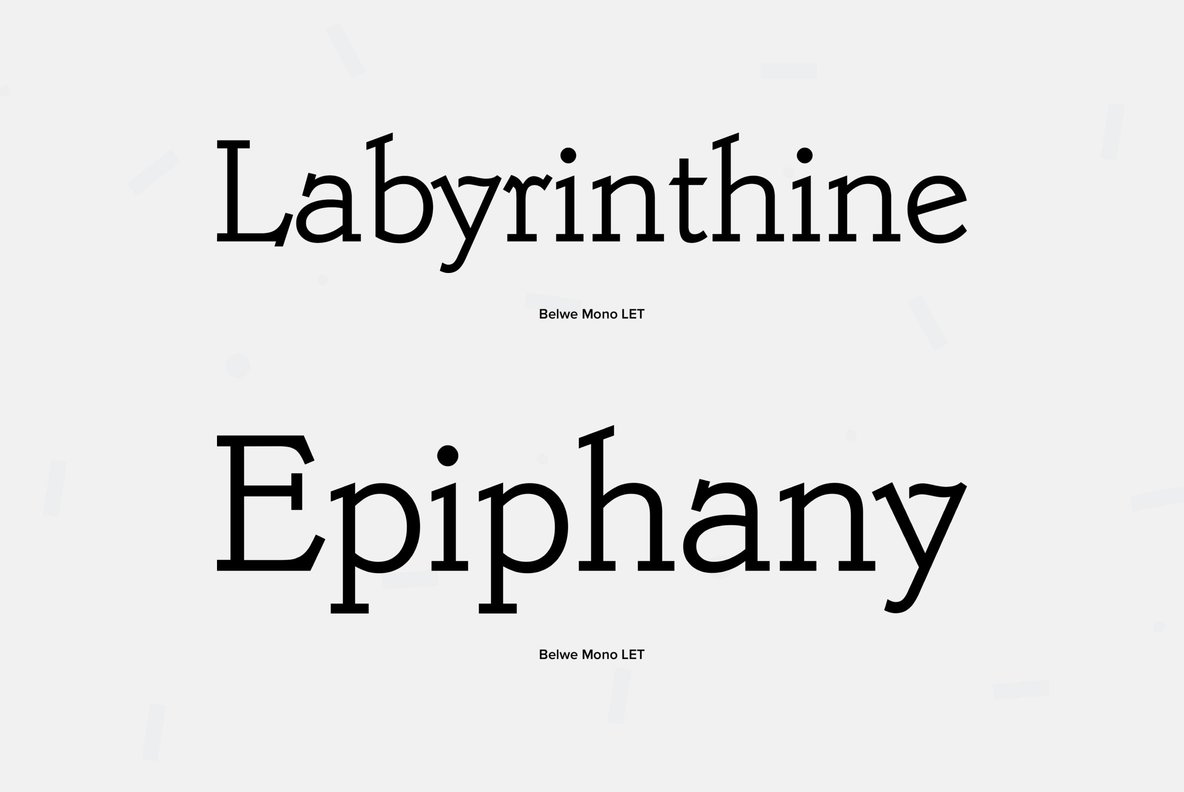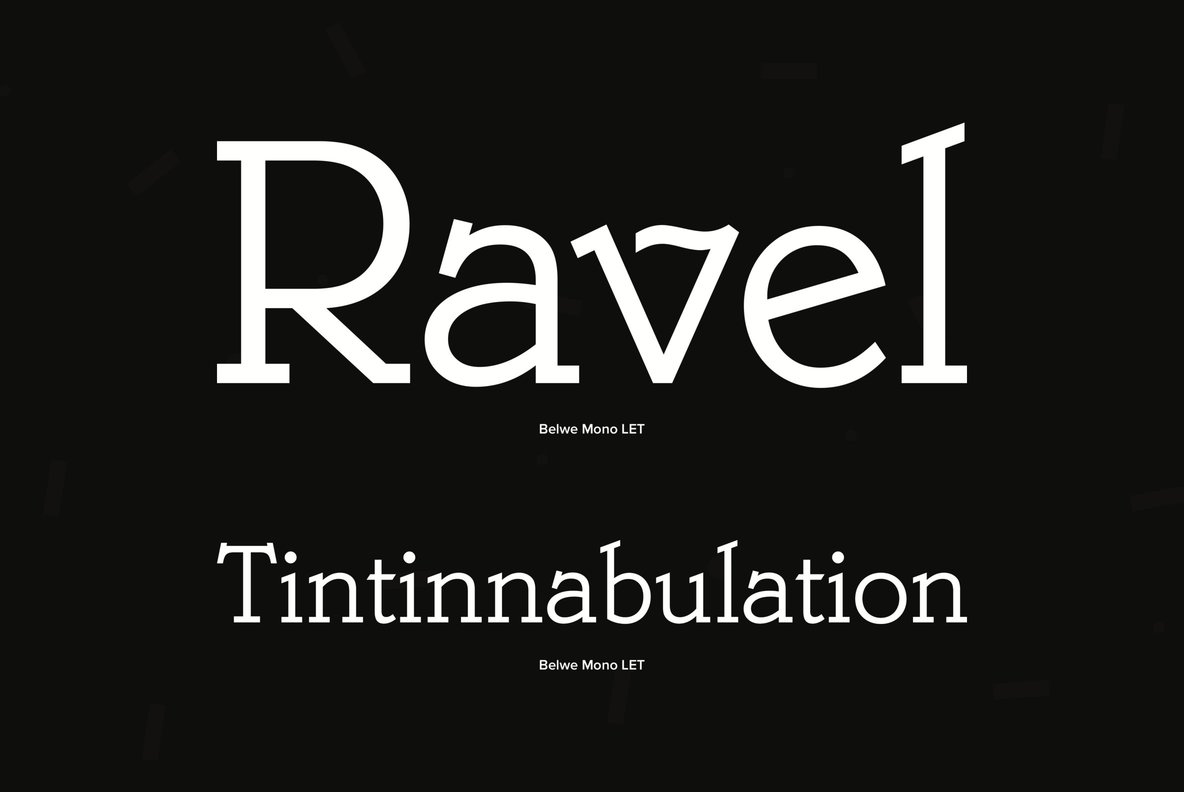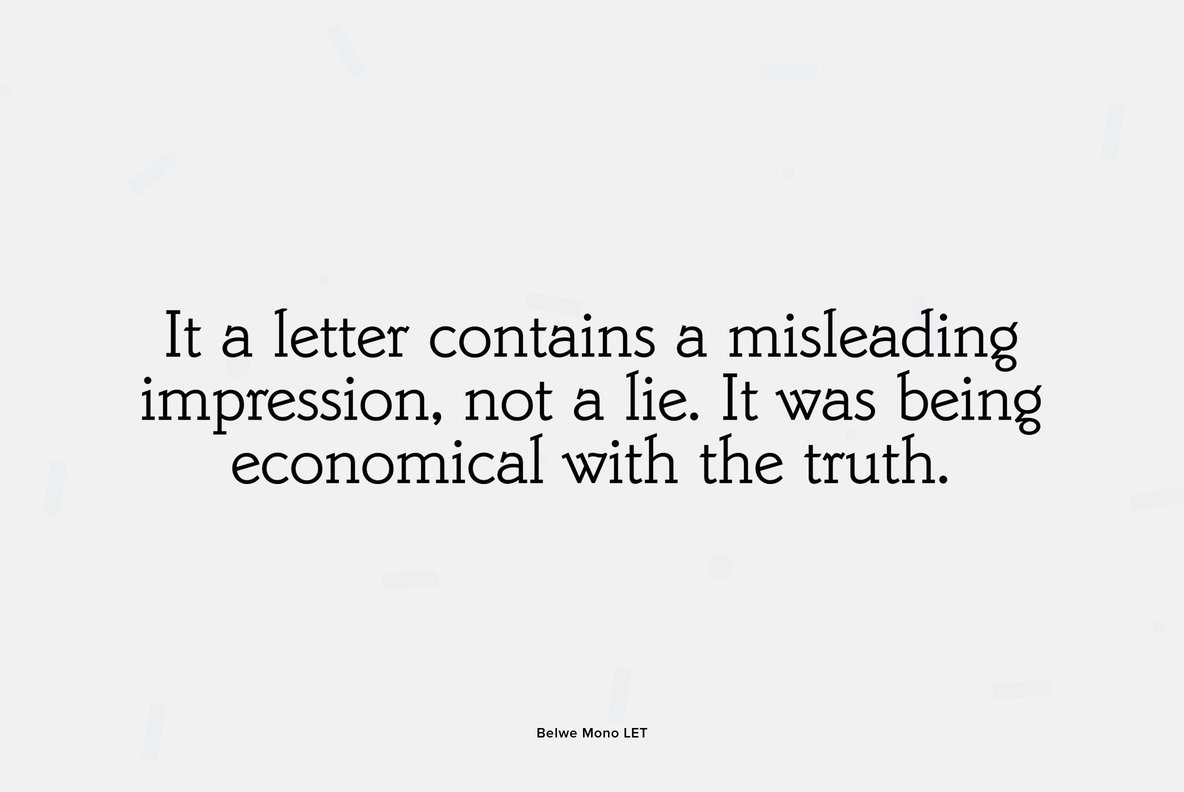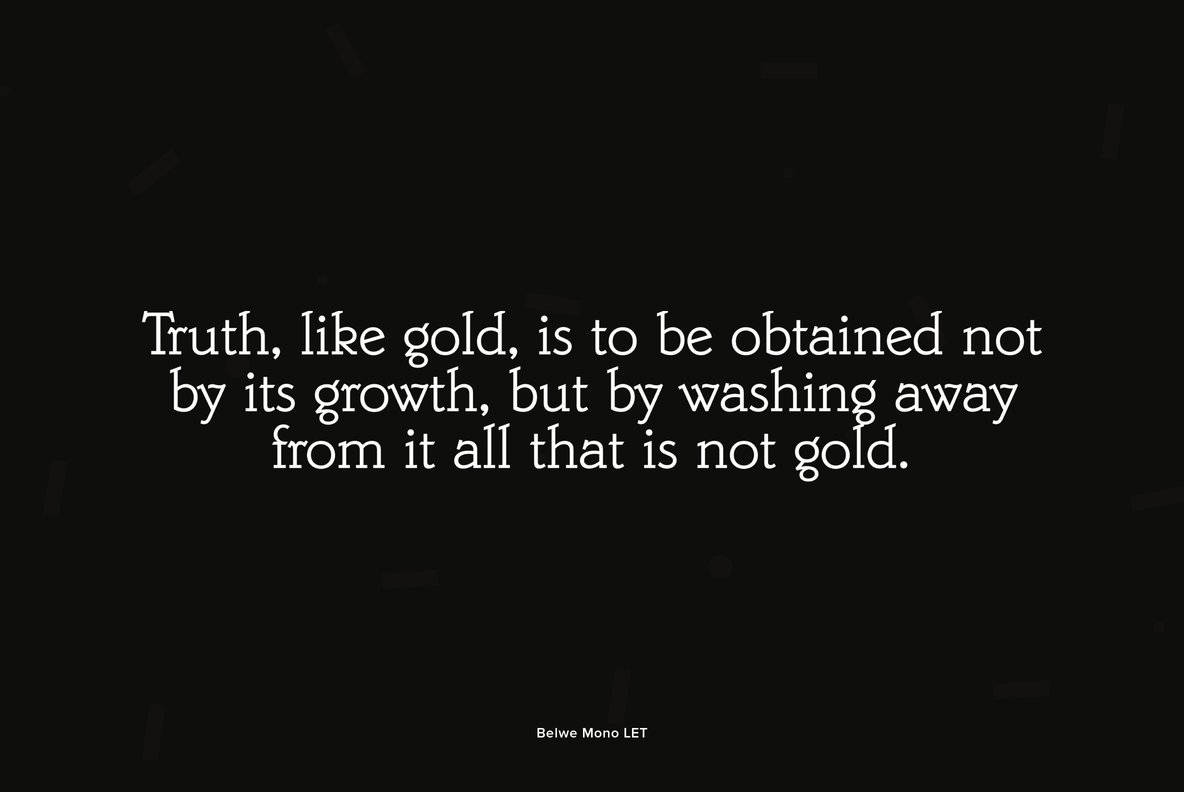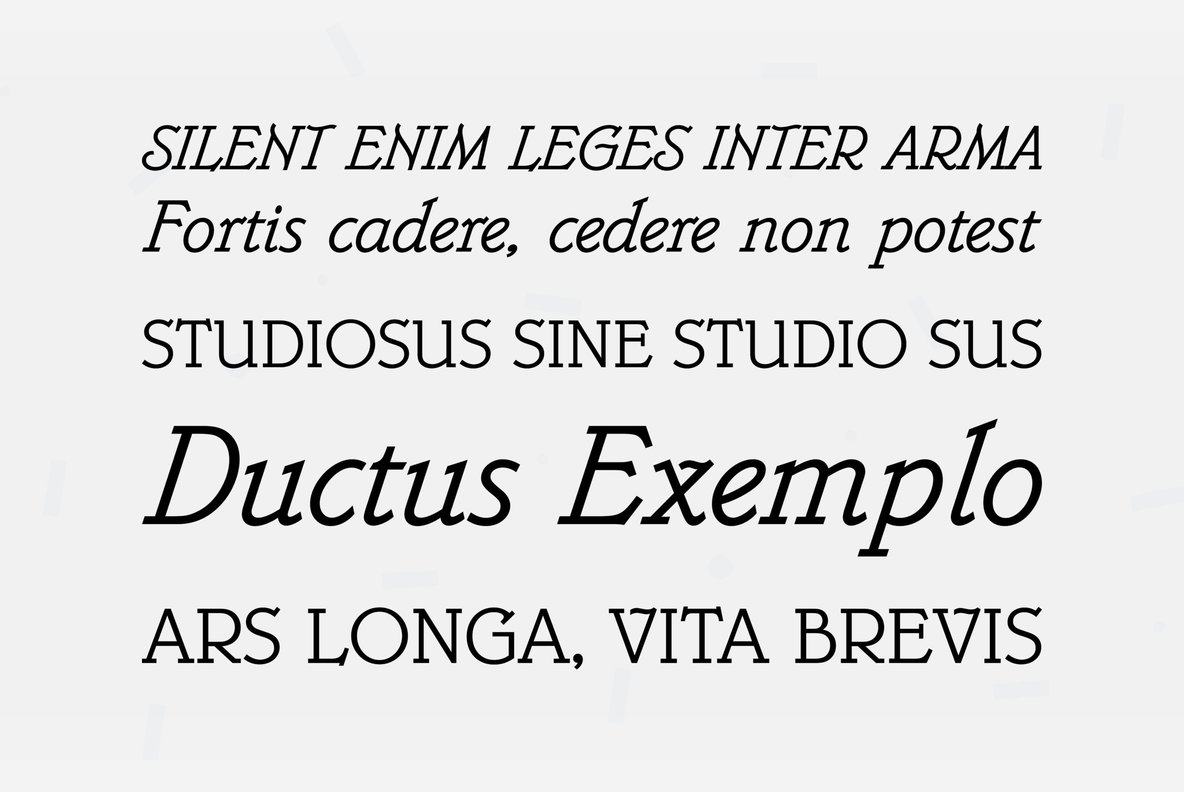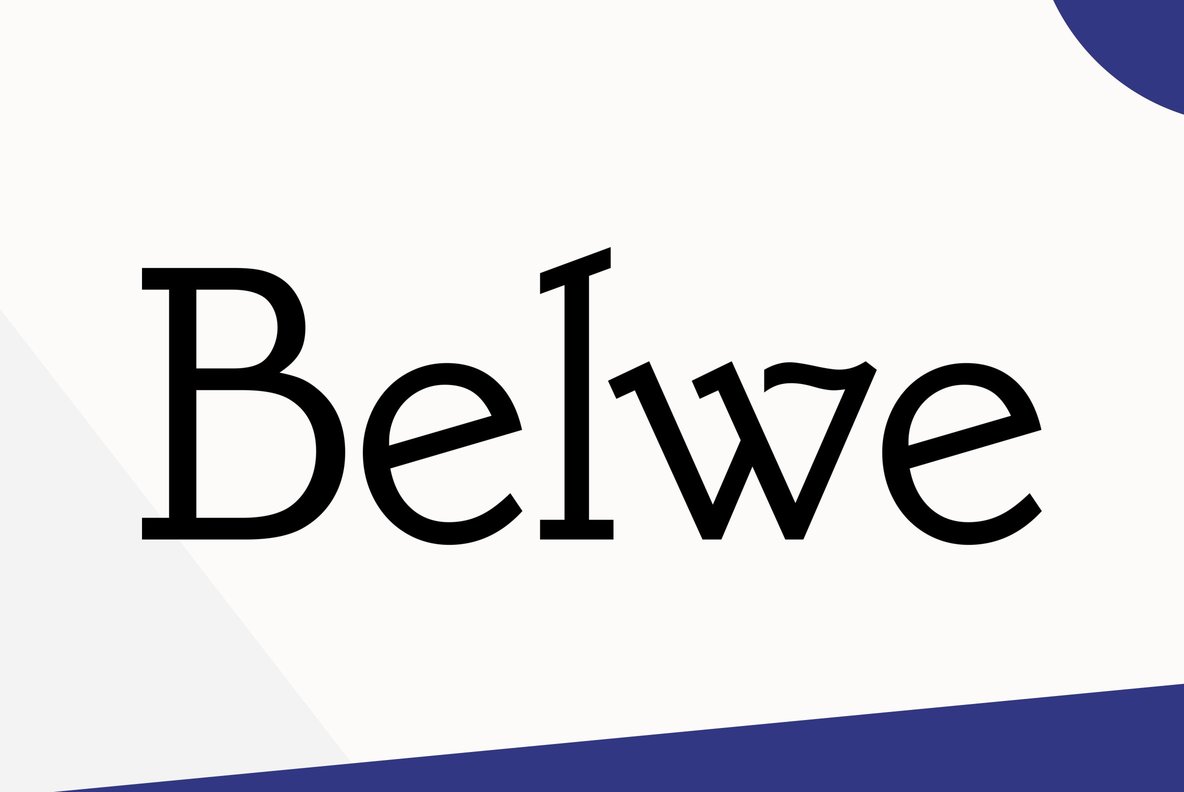
Belwe Font Family
This slab serif Egyptian style is based on the popular Belwe series. The contemporary monolineal treatment of its letters makes it suitable for almost any headline requirement. Developed by well-known British designer Alan Meeks.